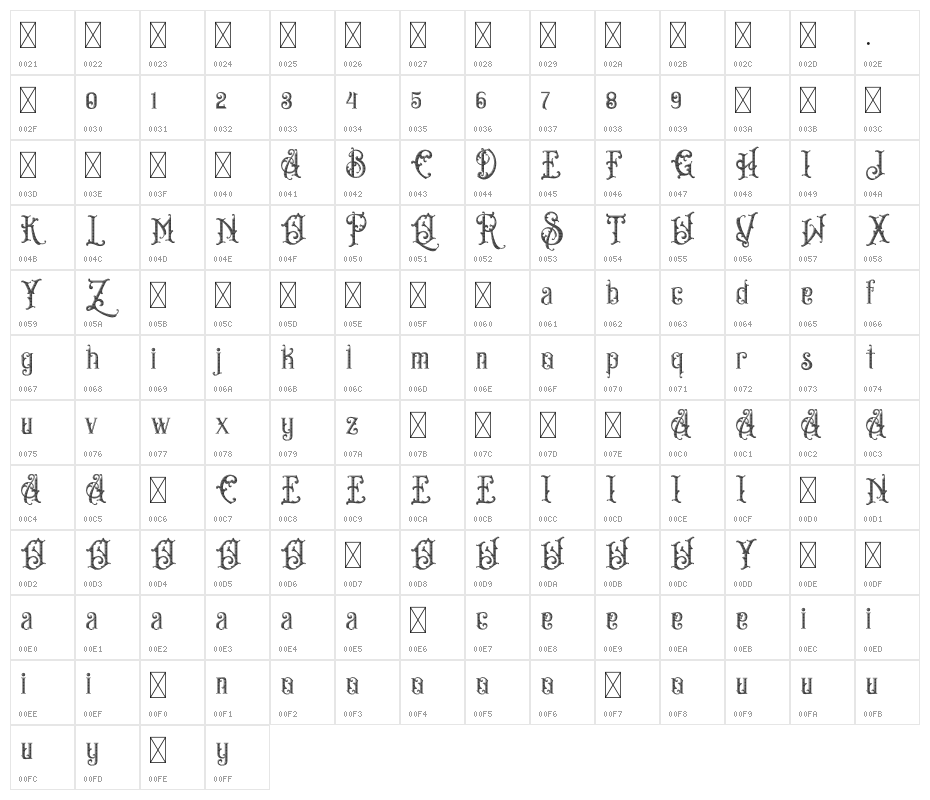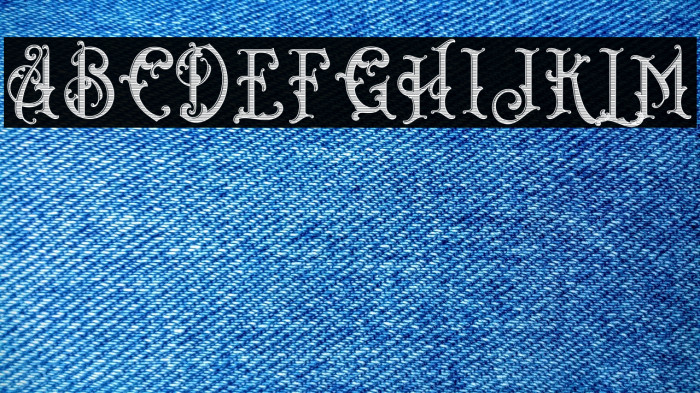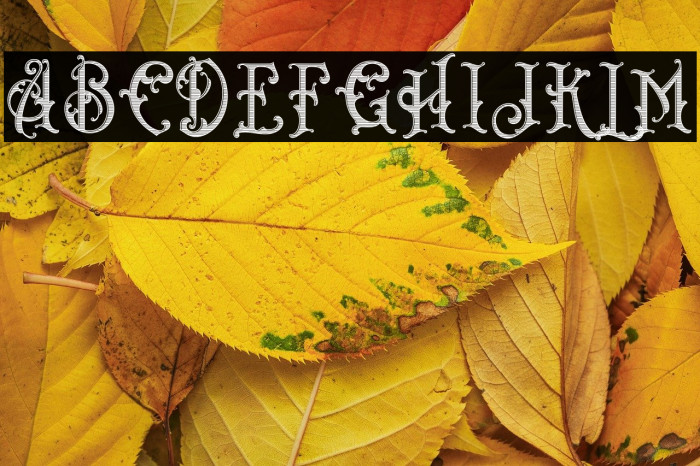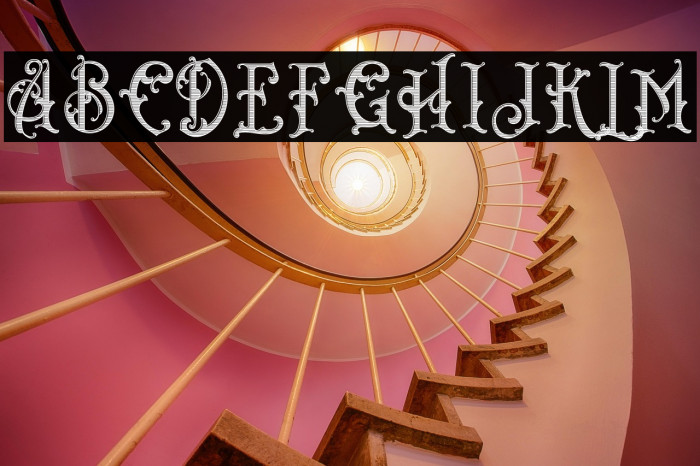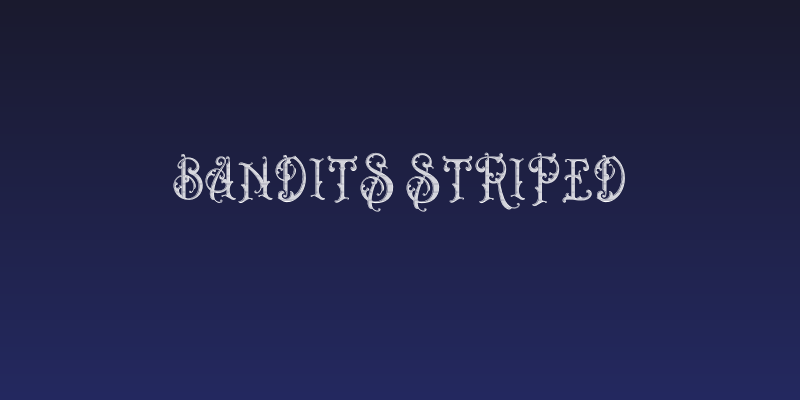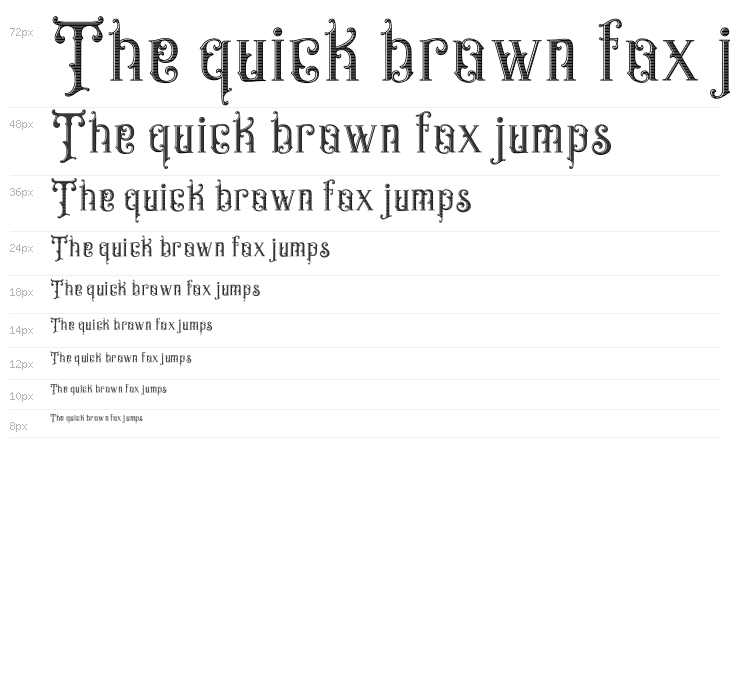
Bandits Striped Font
Bandits Striped Description
This font features a unique striped pattern within each character, giving it a distinct and eye-catching appearance. The letters are embellished with decorative serifs and intricate detailing, creating a vintage and ornate feel. The uppercase and lowercase letters maintain a consistent style, with the numerals and special characters following suit. The overall design is reminiscent of old Western typography, making it suitable for projects that require a touch of nostalgia and flair.
| Use Case | Headlines, Logos, Decorative text |
| Proposed Projects | Ideal for vintage-themed posters, event invitations, branding for retro products, and decorative signage. |